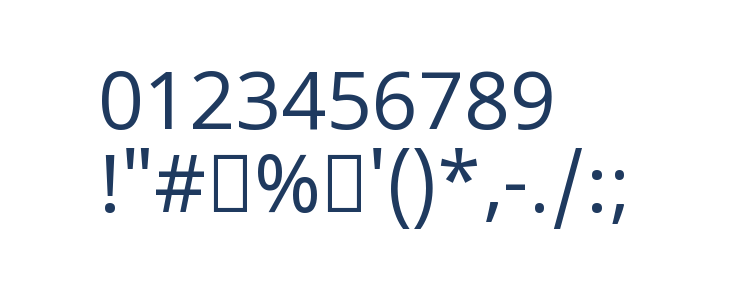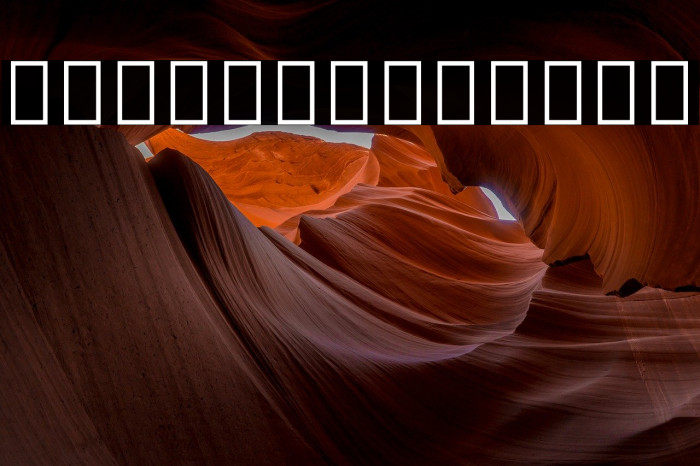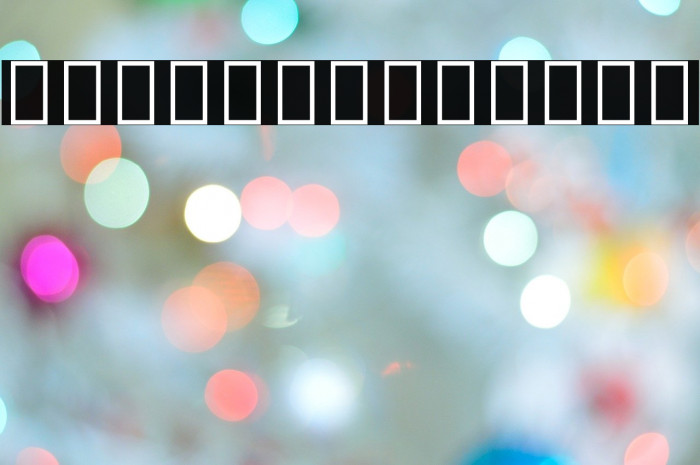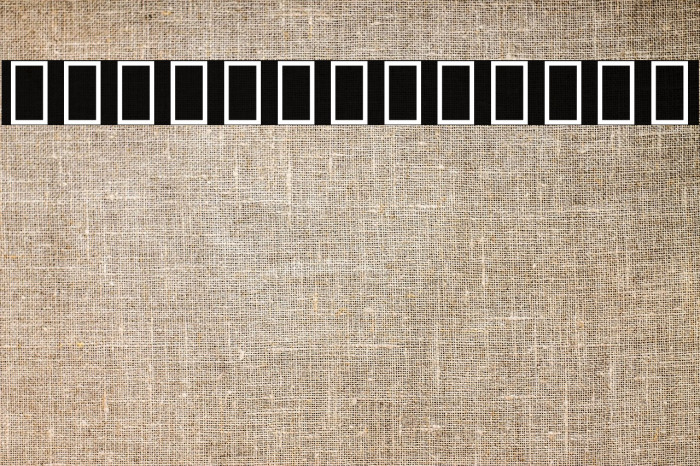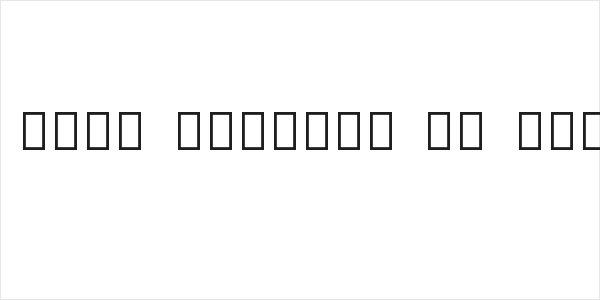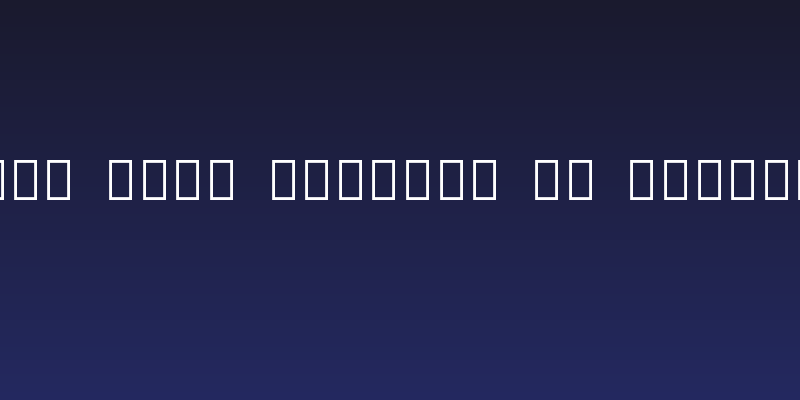
Noto Sans Sinhala UI Regular Font
Noto Sans Sinhala UI Regular Description
This font is a clean and modern sans-serif typeface designed for clarity and readability. It features uniform stroke widths and a straightforward design, making it highly legible across various digital interfaces. The characters are well-proportioned with a balanced x-height, ensuring that text appears consistent and easy to read. The numerals are clear and distinct, and the special characters are designed to complement the overall style, maintaining a cohesive look. This font is suitable for user interfaces and digital content where readability is paramount.
| Use Case | Headlines, Body text, User Interfaces |
| Proposed Projects | Ideal for user interfaces, web design, mobile apps, and digital content where readability is crucial. |